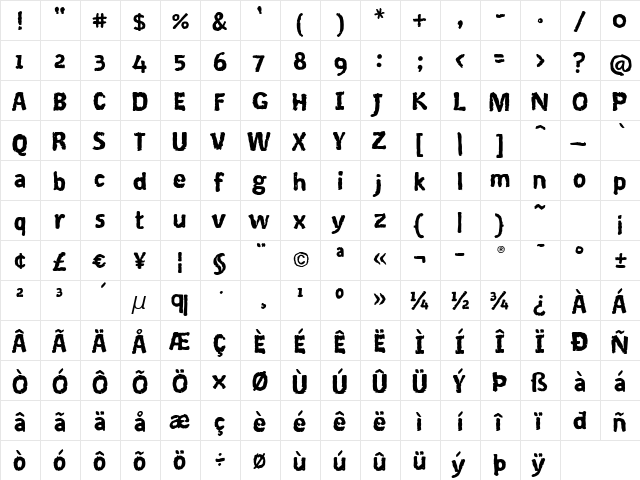
Coventry Hvy ITC TT Regular
| Foundry | International Typeface Corporation |
| Designer | Brian Sooy |
Design Context for Coventry Hvy ITC TT Typeface
Coventry Hvy ITC TT is a composed and adaptable typeface that performs quietly and consistently across a wide range of design contexts.